1 Google Font Similar to Helvetica
Helvetica is one of the most used fonts on the web. It is a very popular sans-serif font that works well for both headlines and paragraph text. Designers use it for both web and print design.
So as you can imagine I was excited to attempt to find a good Google Font alternative to Helvetica.
It is challenging to find some that looks as iconic as Helvetica. I was able to find one pretty similar font that will work well.
So lets jump into it.
What Google Fonts are Similar to Helvetica?
The best fonts from Google Fonts library that would make good alternatives to Helvetica are:
- Roboto
I found that Roboto is the best option that will look the closest. Let me give you more details.
Roboto
Roboto, in my eyes, is going to be your best bet when trying to imitate Helvetica from the Google Fonts library.
It does a great job at mirroring in it's lowercase form. It matches the form of the letters very well, but you can start to pick up a few differences in the length of the strokes on a few letters such as the tail in the "t" in Roboto.
The main differences are going to be in the uppercase letters. Right off the bat, you will notice that the uppercase "G", "Q", and "R" are the most notable.
The "G' features a nice straight down line in Helvetica. While the "G" in Roboto is missing it all together.
The difference in the "Q" isn't quite as bad. You will see that the line goes all the way through the circle of the "Q" in Helvetica, but in Roboto it is only a tail that sticks out.
The biggest difference is going to be the uppercase "R". In Helvetica, it is features this nice little bump on the right side of the leg. While in Roboto, it is just a straight line.
Overall, Roboto would be a really good alternative in lowercase form. In uppercase form, it is just....ok.
See for yourself.
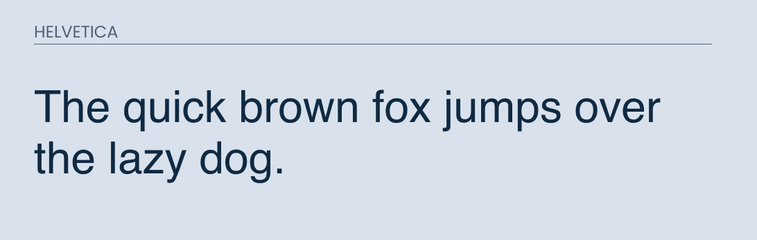
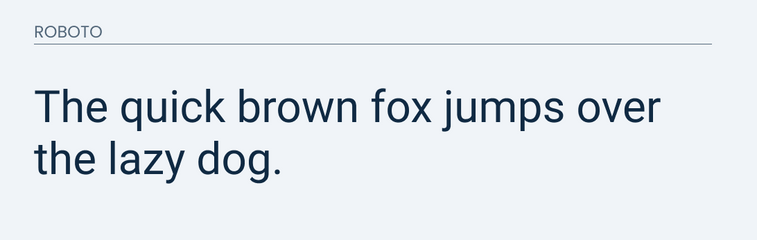
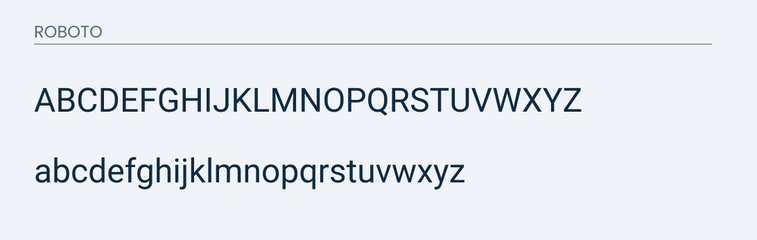
Final Thoughts
It is tough to find a font that matches such a famous and distinct font. I had tried comparing other fonts such as Open Sans and Lato, but when you really start to compare they are not that similar. If you want the Helvetica look, as always, it is best to just go ahead and purchase the font. However, if you are on a budget, you might be able to get away with Roboto.